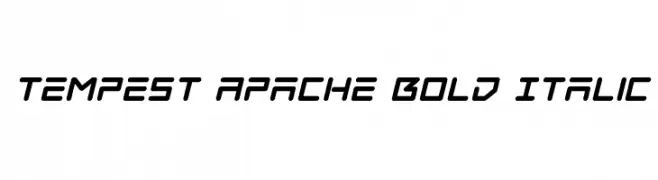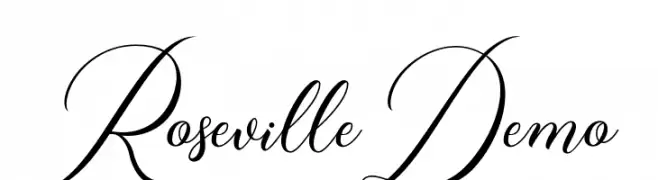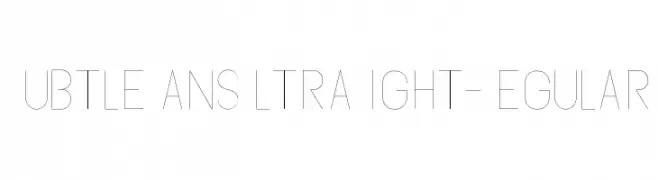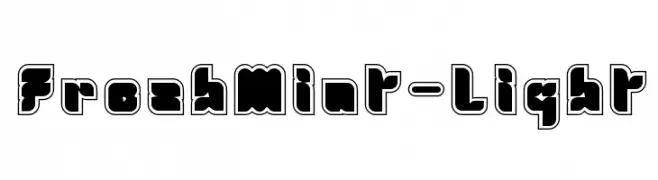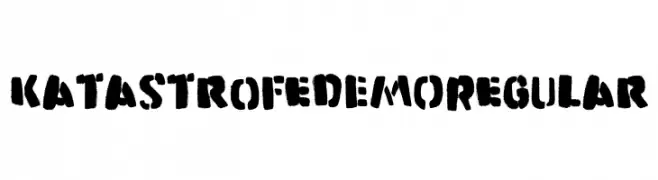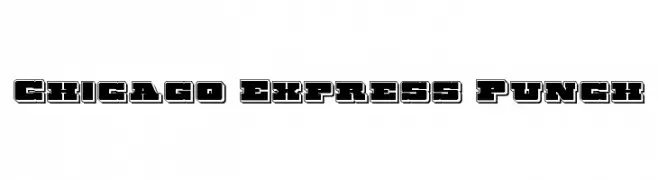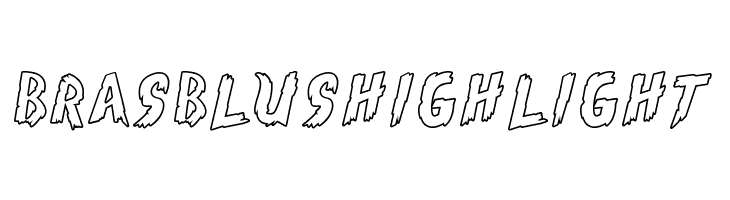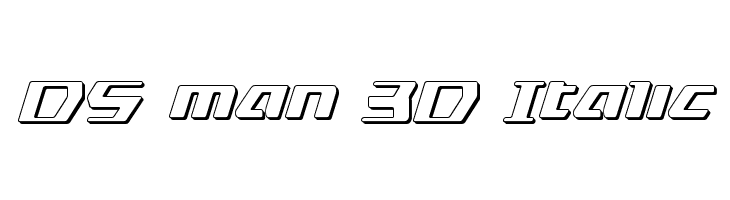
A bold, italicized font with a modern, futuristic design.
An elegant script font with flowing, cursive letterforms and sophisticated flourishes.
A playful, bold font with rounded strokes and a friendly appearance.
A bold, modern font with clean lines and a slight slant, perfect for headlines.
An ultra-light, minimalist sans-serif font with thin, elegant strokes.
Bold, geometric font with a three-dimensional outlined style.
A bold, distressed stencil-style font with a rugged, graffiti-like appearance.
A bold, blocky font with a vintage, collegiate style and strong outlines.
A bold, italicized font with a dynamic and energetic style.
A futuristic, italicized font with a gradient effect and striped pattern, ideal for dynamic and modern designs.